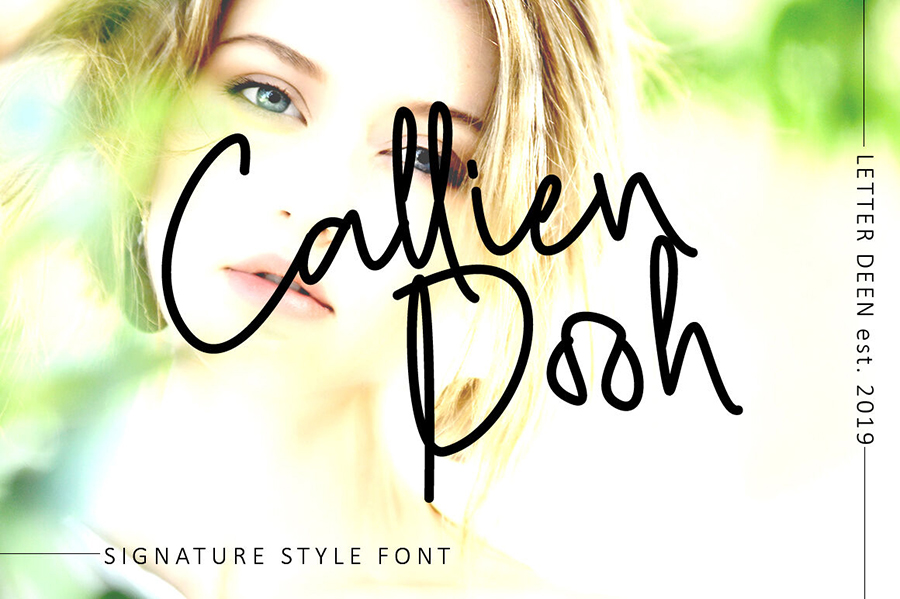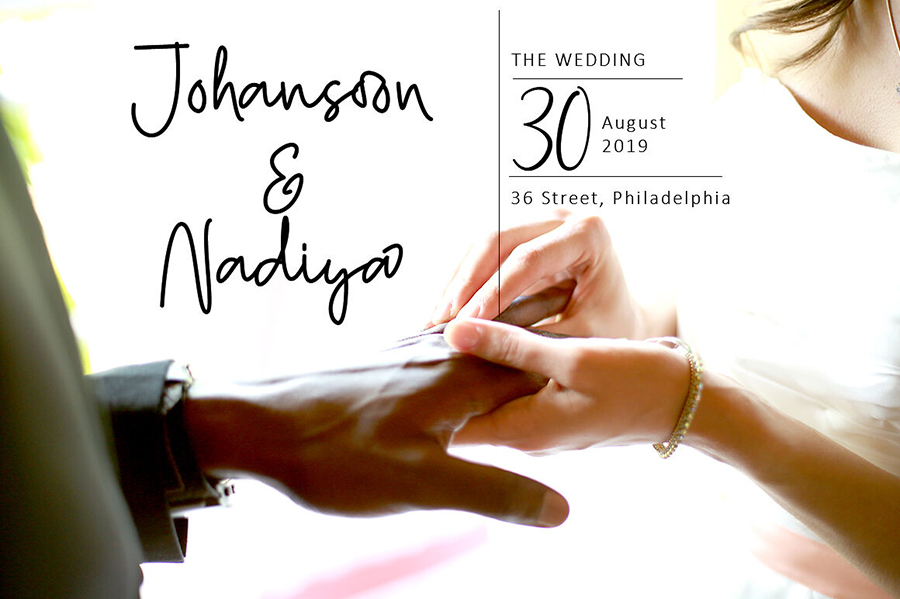
Callien Pooh Handlettering Font
Callien Pooh Handlettering Font is a very beautiful font that differs from others with its elegant letter curves and smooth strokes. any of your design projects will sparkle with new colors and become unique if you use this font. Create any project with this font, from watermarks and logos to wedding designs and apparel. The font can very well emphasize your corporate identity. If you wish to access more features and use it for commercial work, go get the full version.